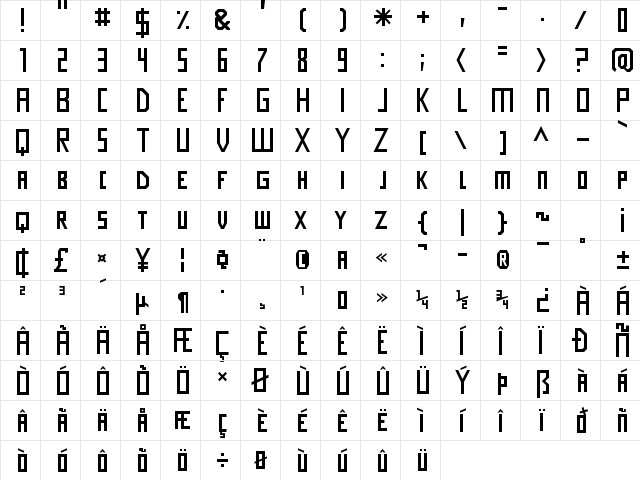
Imagine Slim Extra Regular
| Designer | Jens Isensee |
Design Context for Imagine Slim Extra Typeface
Imagine Slim Extra takes a measured approach to typography — its balanced proportions and neutral character make it a reliable workhorse for both digital and print work.